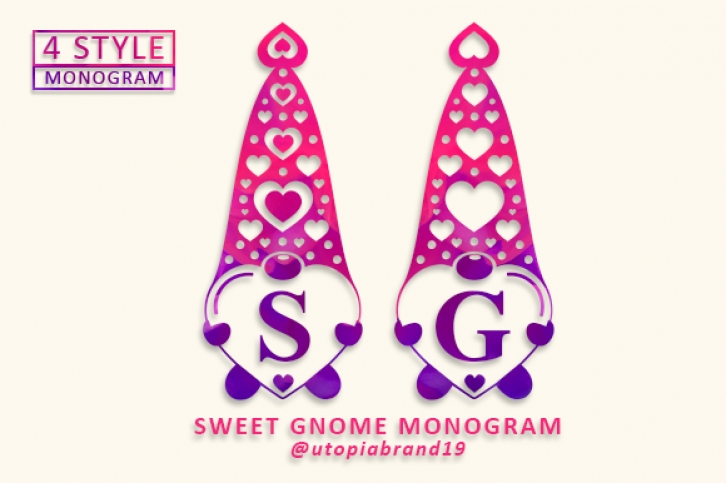
Sweet Gnome Monogram is a dainty and unique decorative font. Add this romantic and lovely-looking font to each of your love letters, wedding invitations, or favorite design ideas, and you will be astounded by the outcome.